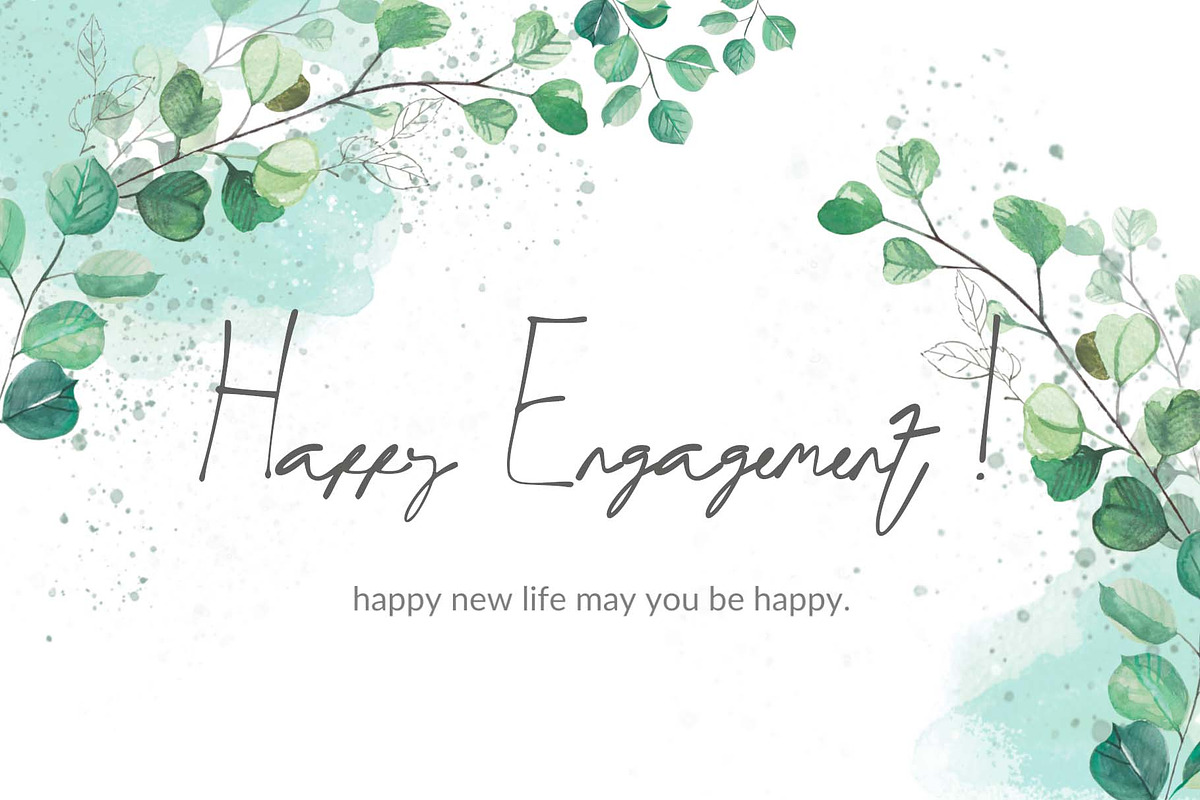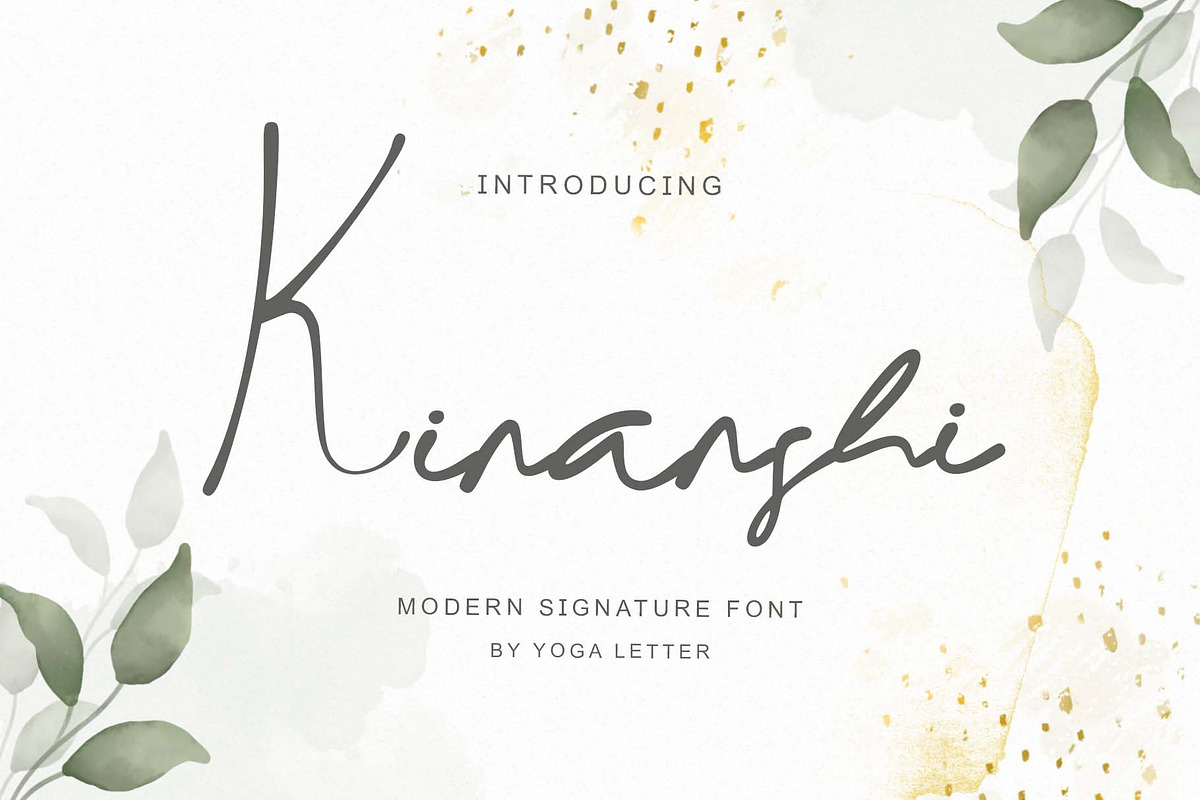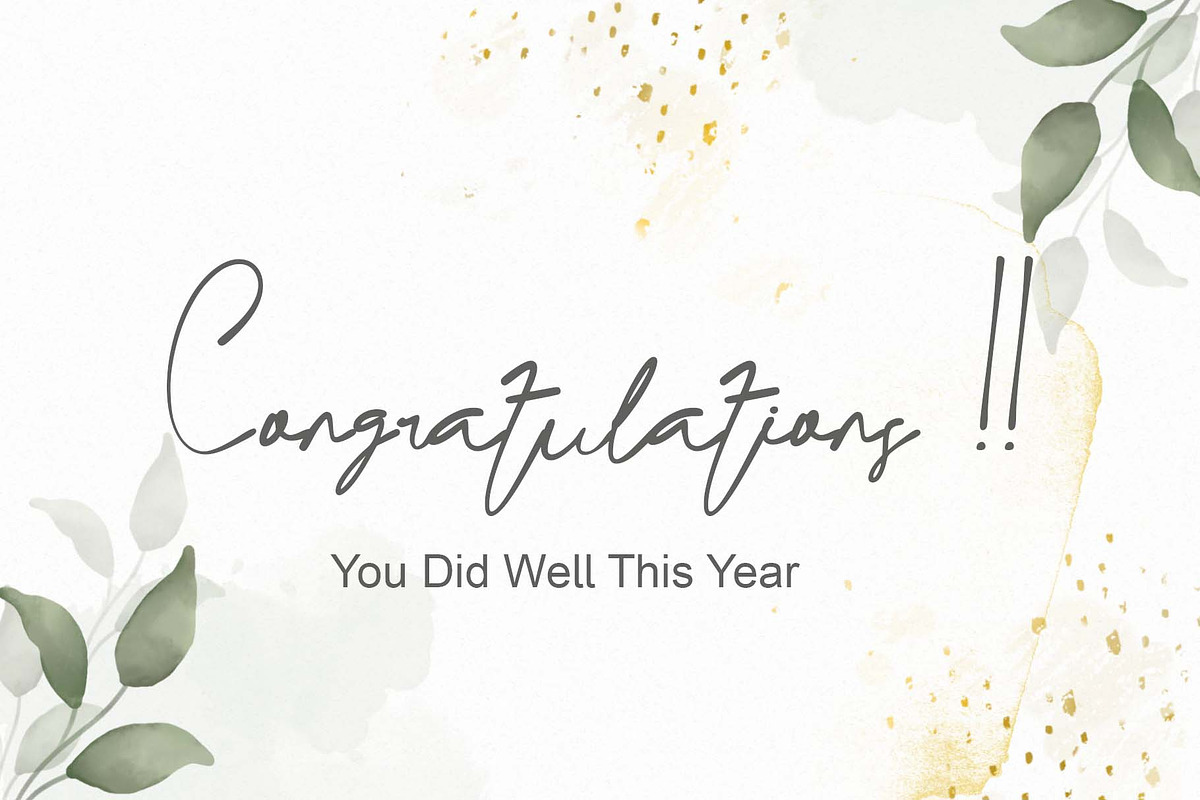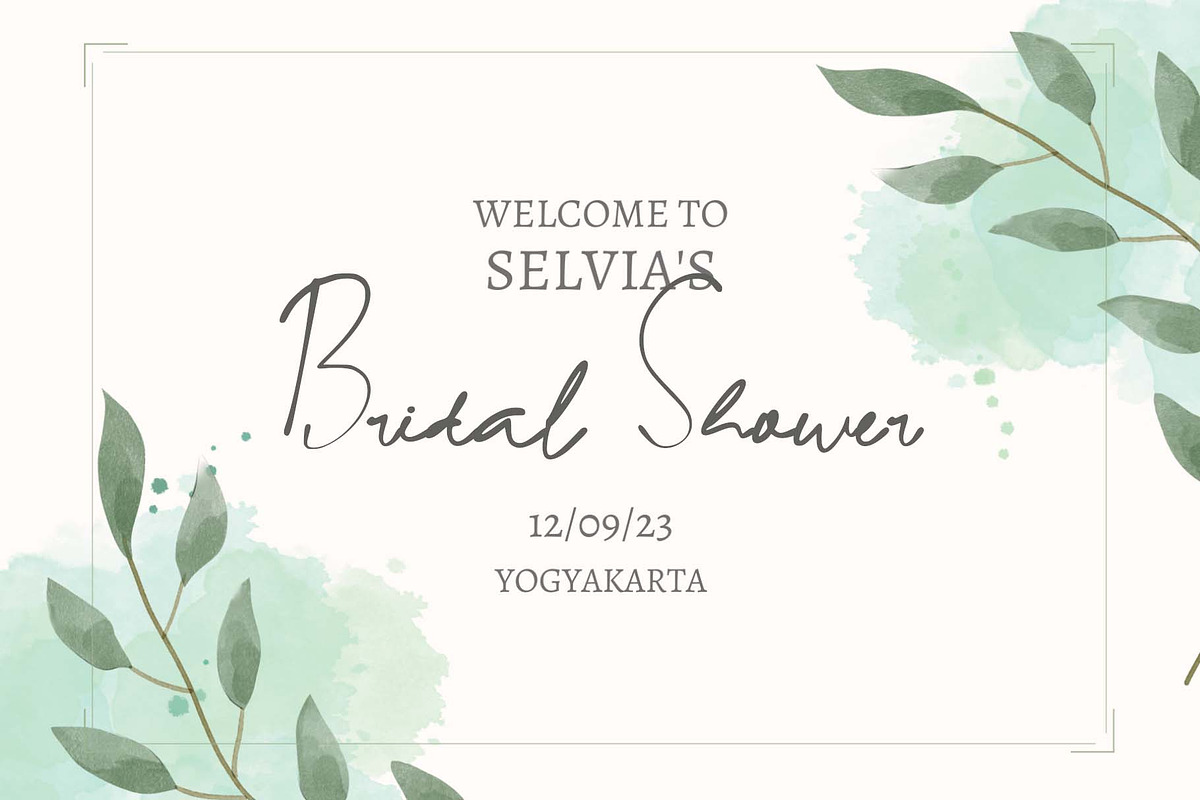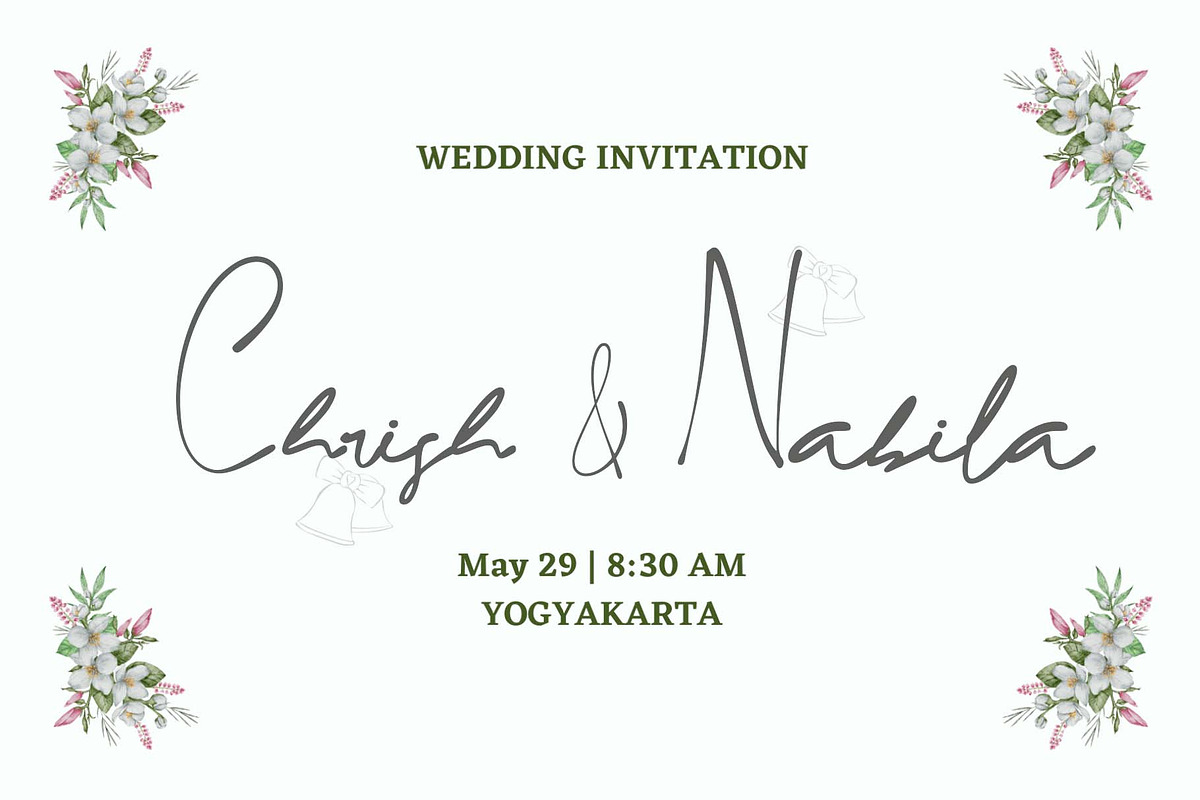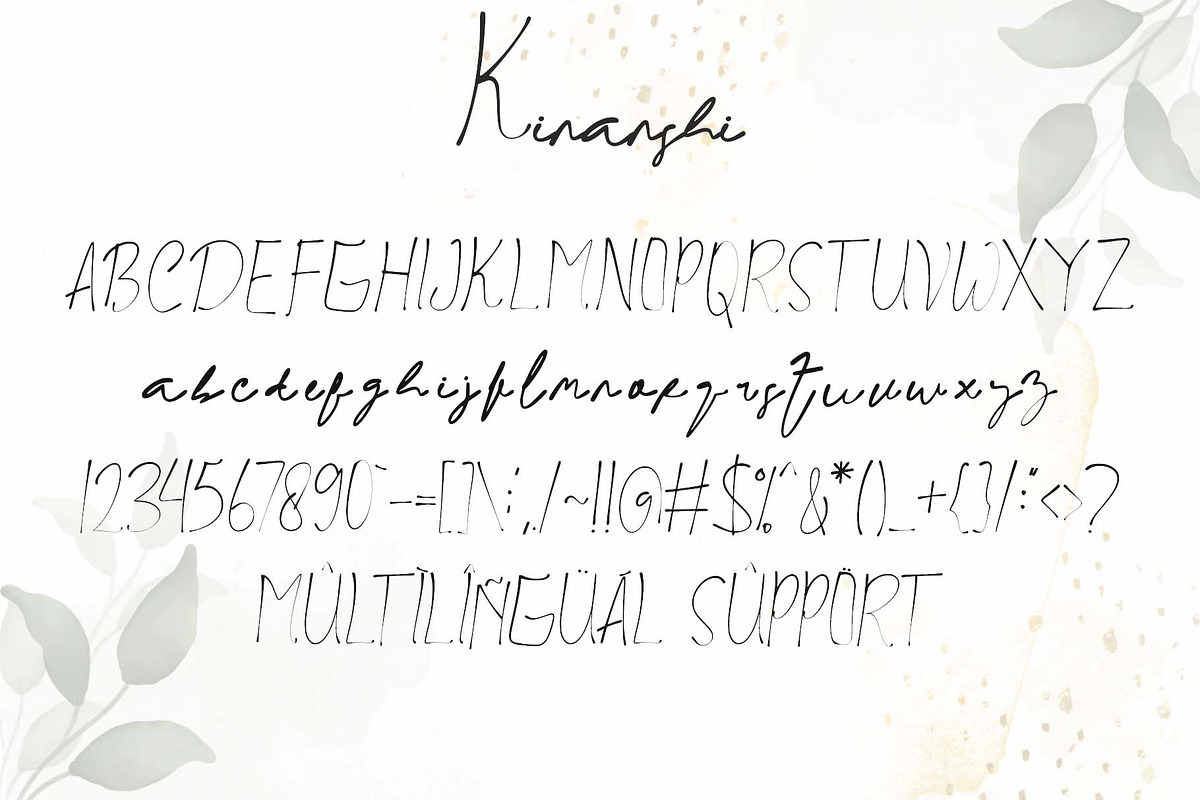
Kinanshi
"Kinanshi" is a very elegant and beautiful signature font. This font is very easy to use because it has been specially designed. Equipped with uppercase, lowercase, numerals, punctuations and multilingual support. It is very suitable for weddings, engagement, certificates, logos, business branding and so on.